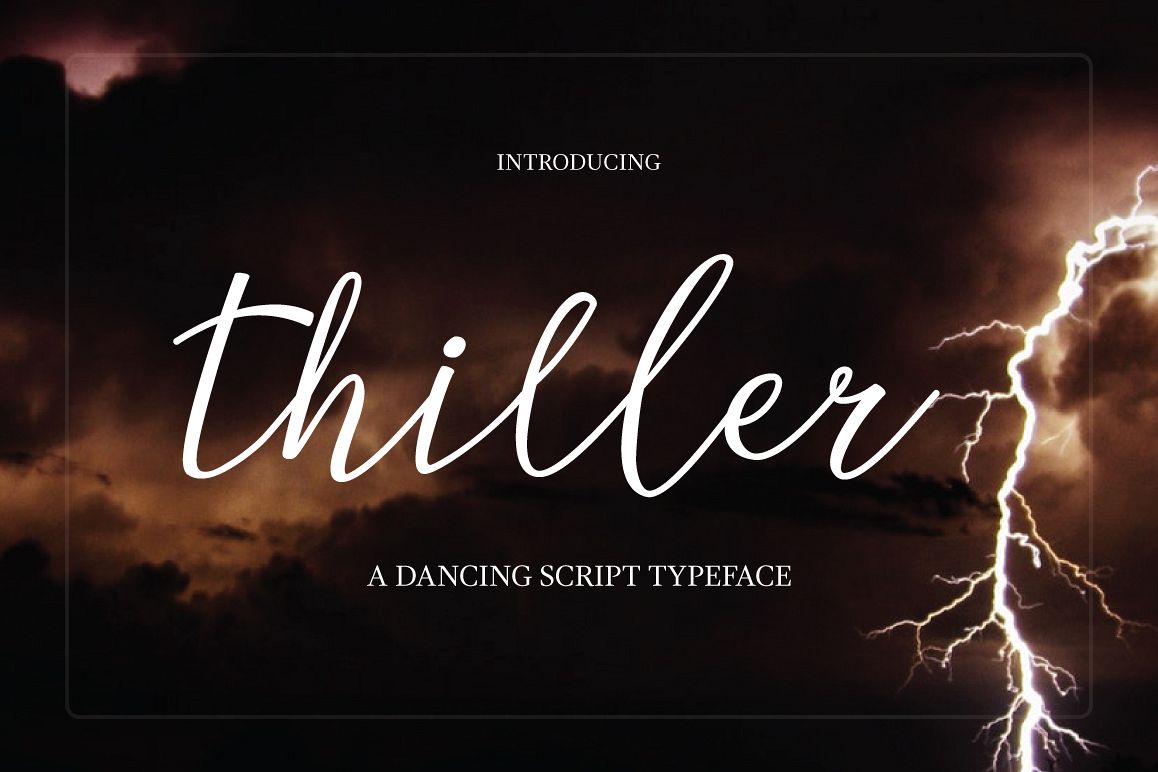
Presenting Thiller Typeface, a nice and dancing & bouncy
script font which is perception and sensibly designed to create your text looks
extraordinary. An exciting script style typeface will craft a well-ordered presence
for many different projects such as quotes, blog header, poster, wedding,
branding, logo, fashion, apparel, letter, invitation, stationery, etc.